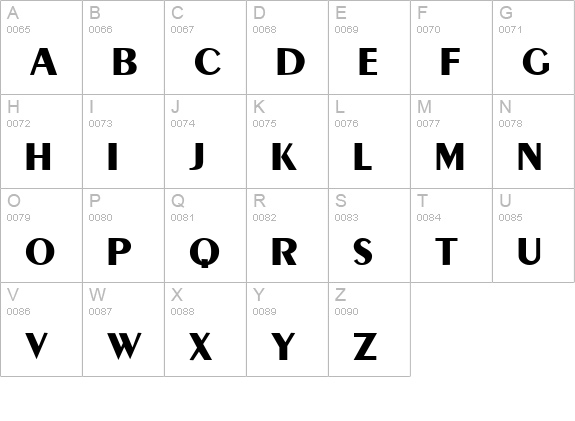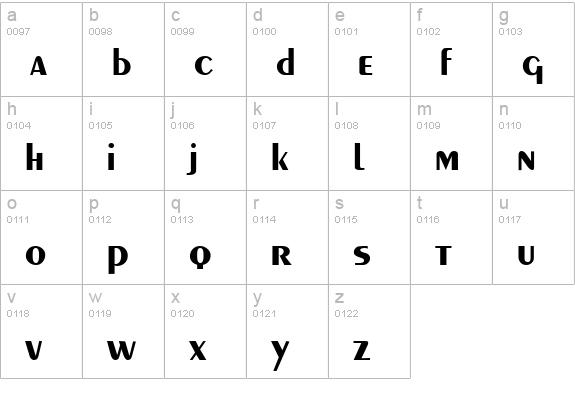
Penultimate Regular Font Details
Penultimate Regular is the standard, neutral variant in the Penultimate typeface family \xE2\x80\x94 well suited to general body text, paragraphs, and standard typographic work.
Introducing Penultimate Regular font, a timeless typeface that combines classic elegance with modern versatility. This font is perfect for a wide range of design projects, from print materials to digital creations. With its clean lines and balanced proportions, Penultimate Regular exudes sophistication and professionalism. What sets Penultimate Regular apart is not only its impeccable design but also its accessibility. This font is freely available to download at FontsMarket.com, allowing designers and enthusiasts alike to effortlessly incorporate it into their work. Gone are the days of limited font options or exorbitant prices – Penultimate Regular offers both quality and affordability in one package. Whether you're designing a logo, creating a magazine layout, or crafting an eye-catching social media post, Penultimate Regular is a reliable choice that will elevate your designs to new heights. Its versatility makes it suitable for a variety of projects, ensuring that you can achieve the perfect visual aesthetic every time. The sleek and modern appearance of Penultimate Regular will captivate your audience, leaving a lasting impression with its clean and sophisticated aesthetic. Its legibility and readability make it an ideal choice for body text, while its subtle details and refined curves add a touch of elegance to headings and titles. Penultimate Regular is a font that effortlessly combines timeless appeal with contemporary design, making it a must-have addition to any designer's toolkit. Its versatility, accessibility, and affordability make it an invaluable resource for both professionals and enthusiasts. Download Penultimate Regular for free at FontsMarket.com and unlock the potential to create stunning and impactful designs.